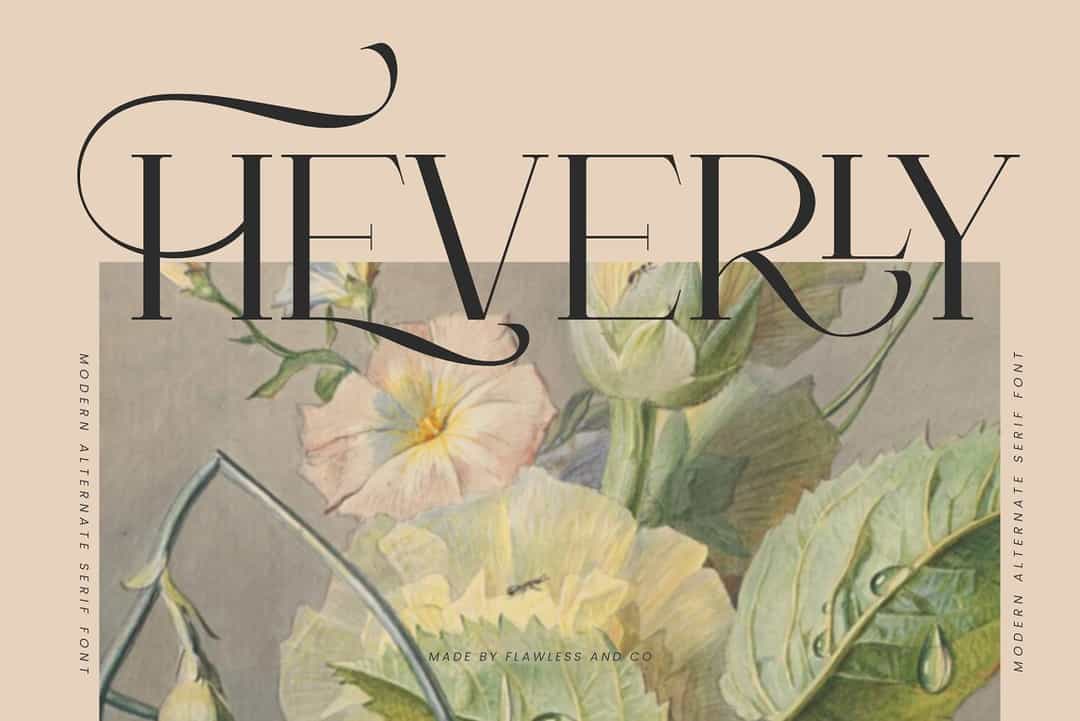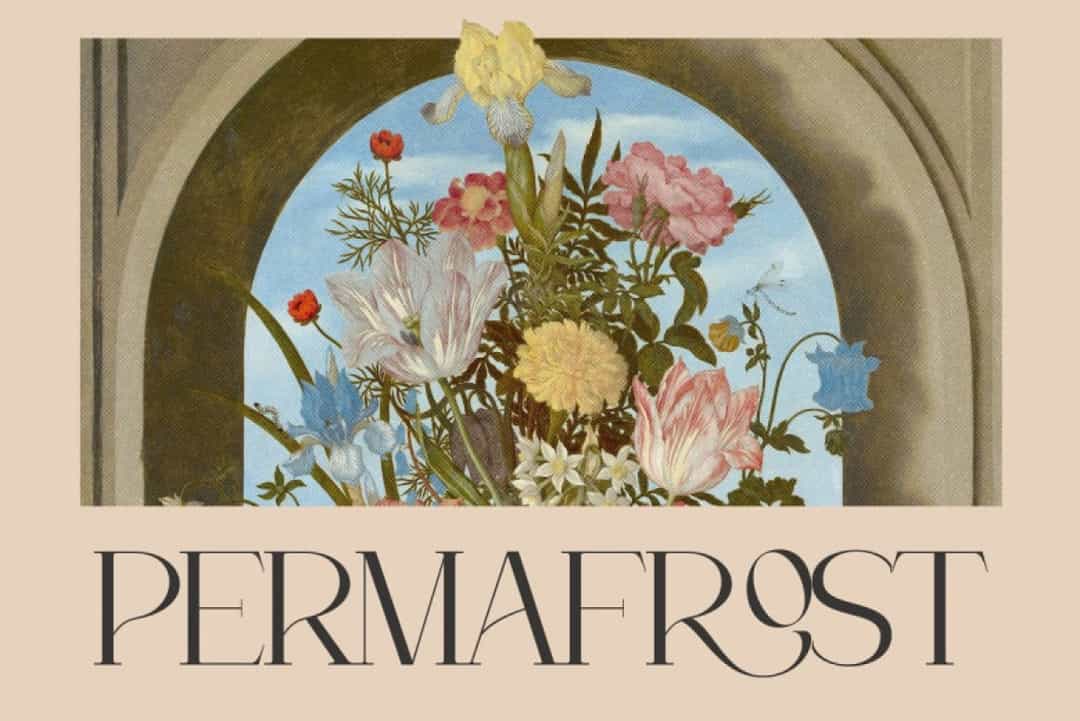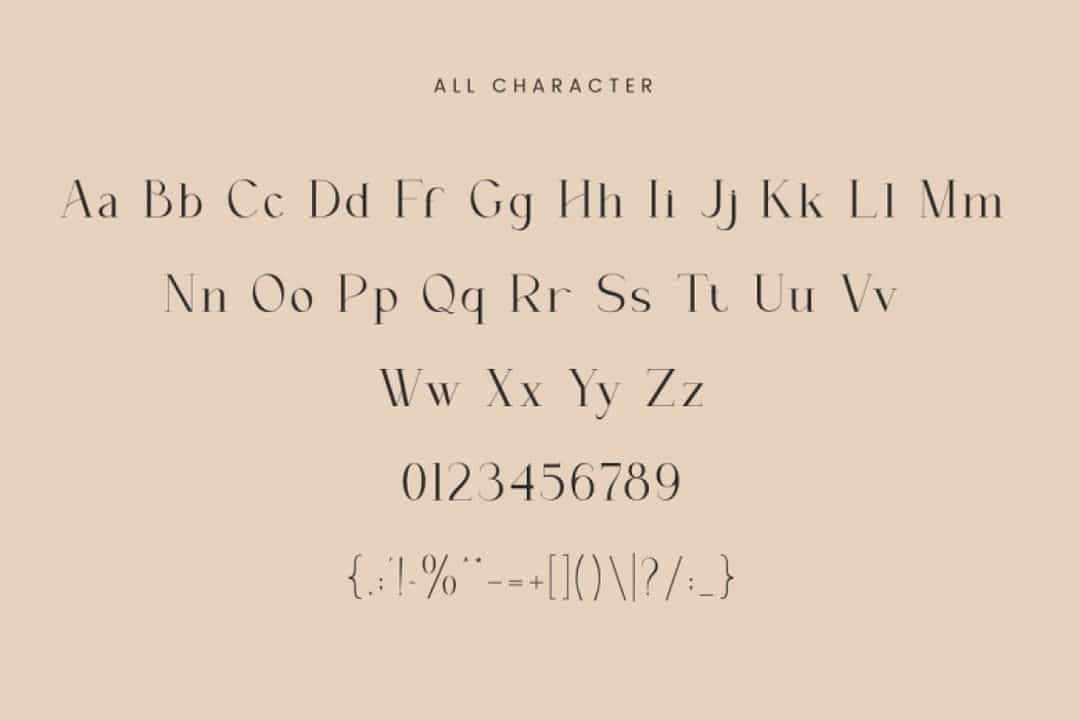
Discover Heverly Font, part of the Serif collection—a versatile and unique font perfect for adding a personal touch to your projects. Download it for free and enjoy crafting designs with style, from invitations to social media posts. This font is available exclusively for personal use, giving you the freedom to create without limits. Unlock your creativity with Heverly Font today!
“Heverly”, A Contemporary Alternate Serif Typeface. Embark upon modernity while maintaining classic style with “Heverly,” an eye-catching serif alternative font which goes far beyond simple letters to provide you with a platform for creativity to flourish.